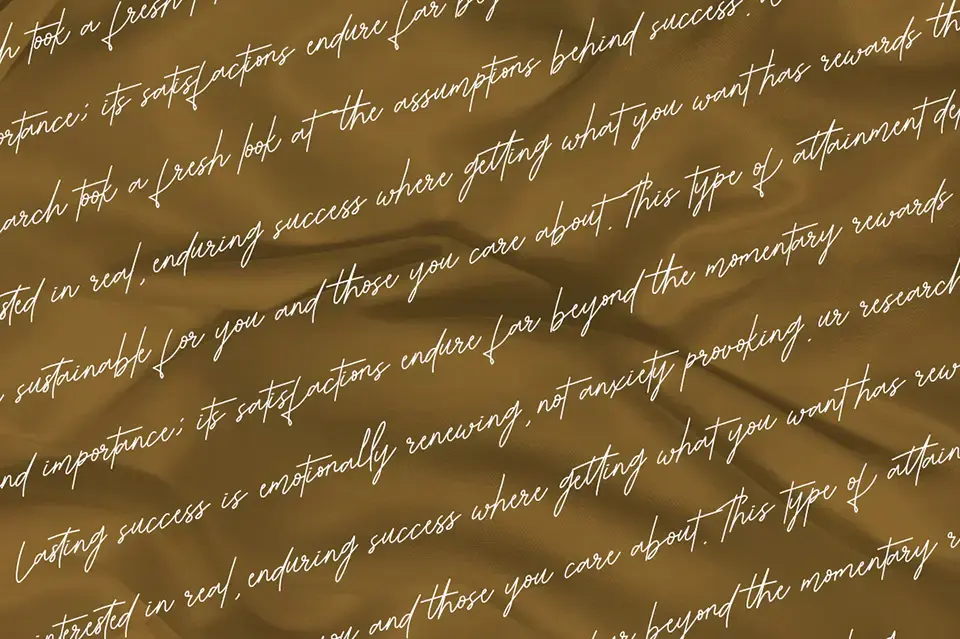
Holly Signature Font
Holly Signature is an elegant, modern handwritten script font featuring smooth, flowing letterforms with semi-light weight characteristics. The design exudes sophistication and natural penmanship, making it ideal for creating refined signatures, branding materials, and decorative text. With connected letterforms and graceful curves, this typeface adds a personal, luxurious touch to logos, packaging designs, wedding invitations, greeting cards, and posters. Perfect for designers seeking to convey elegance, authenticity, and contemporary style in display applications.